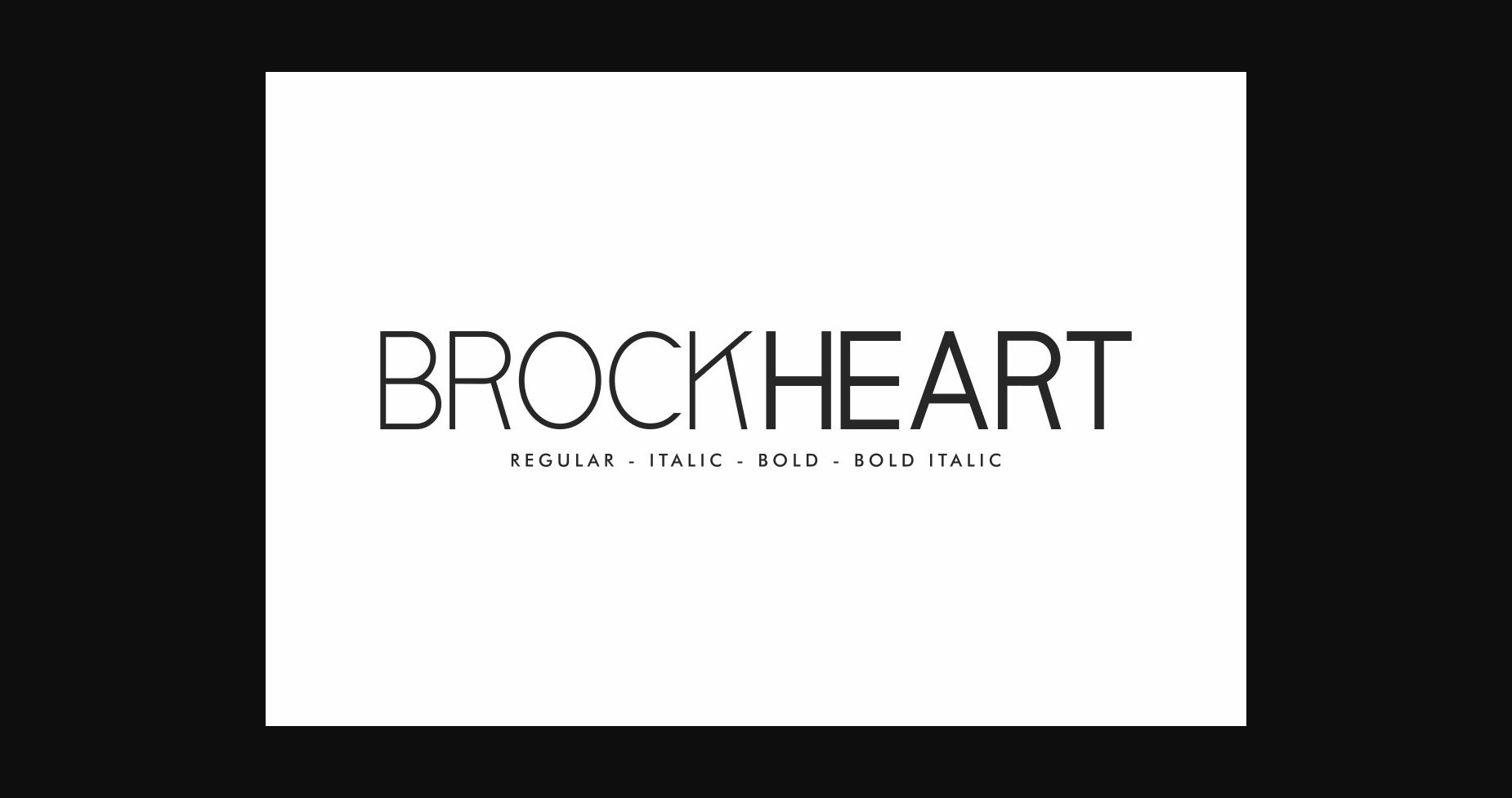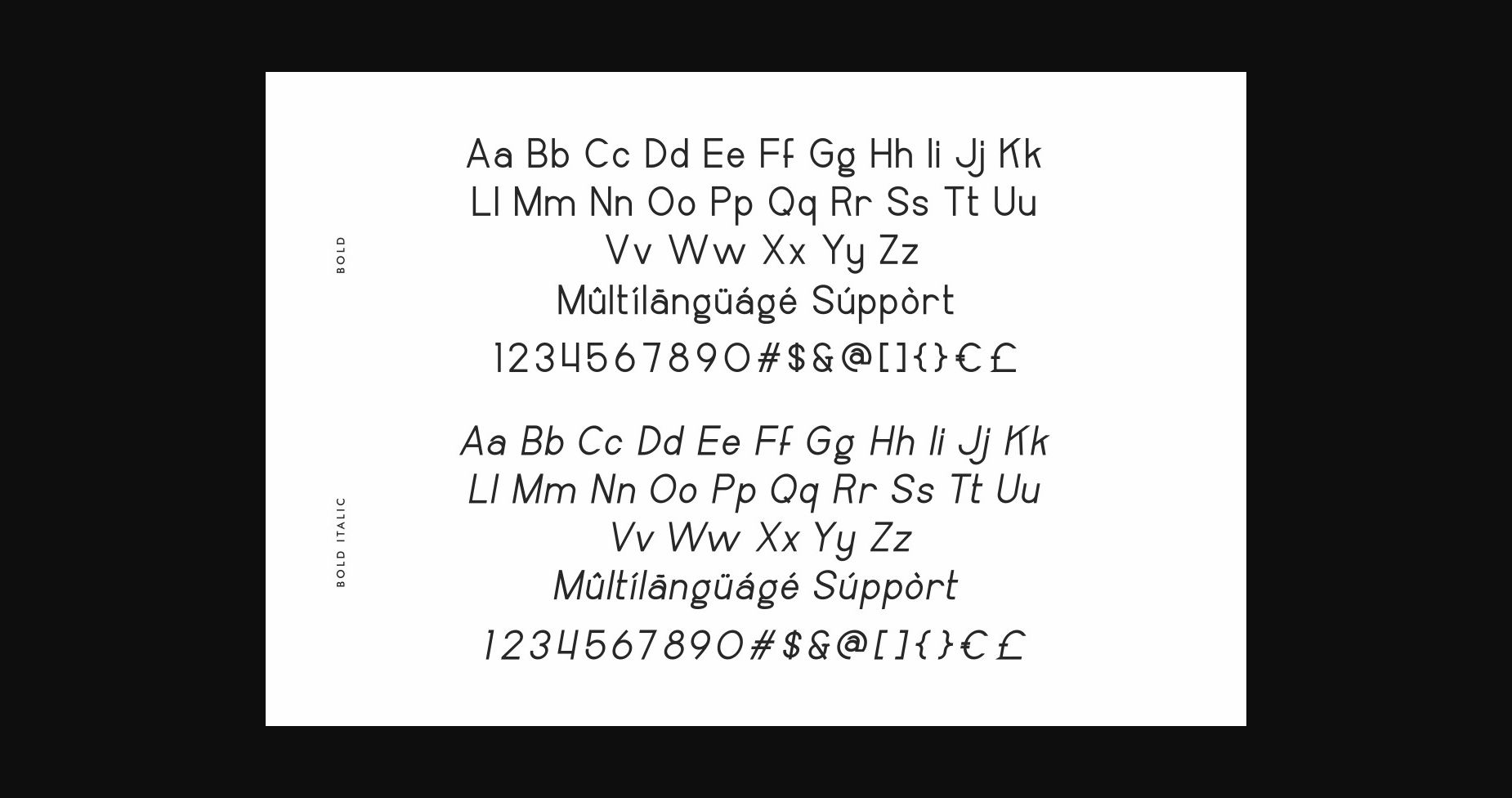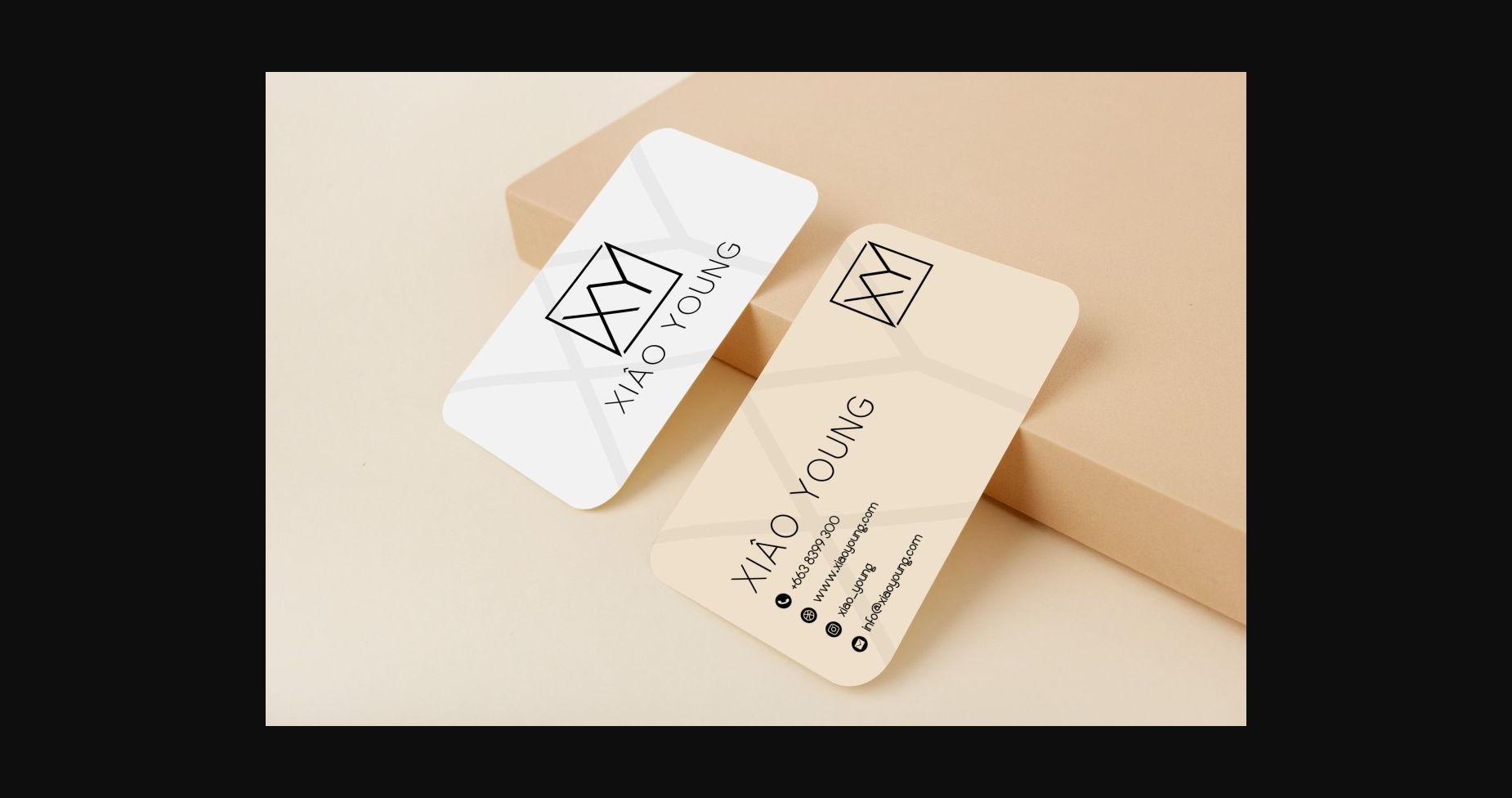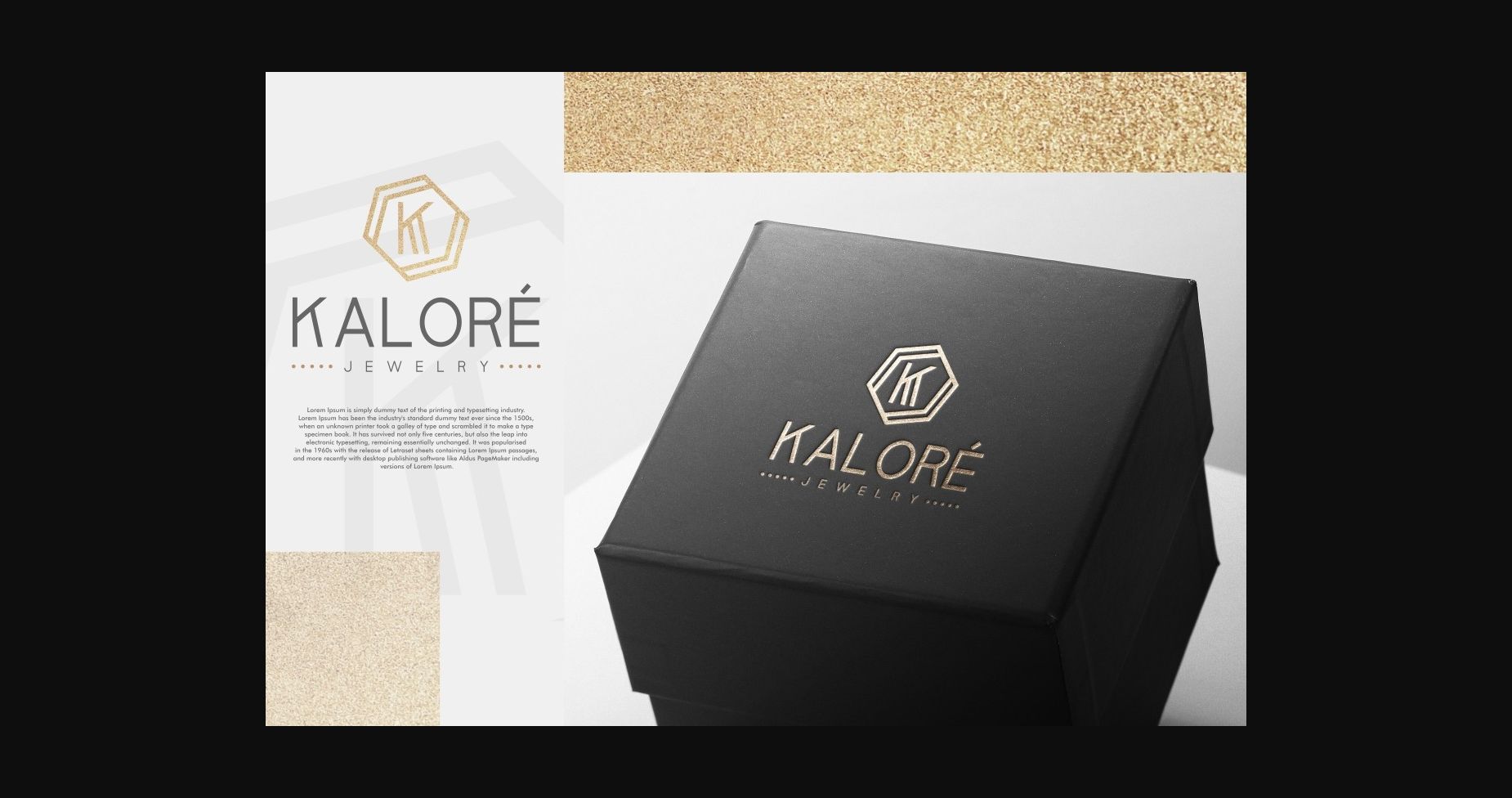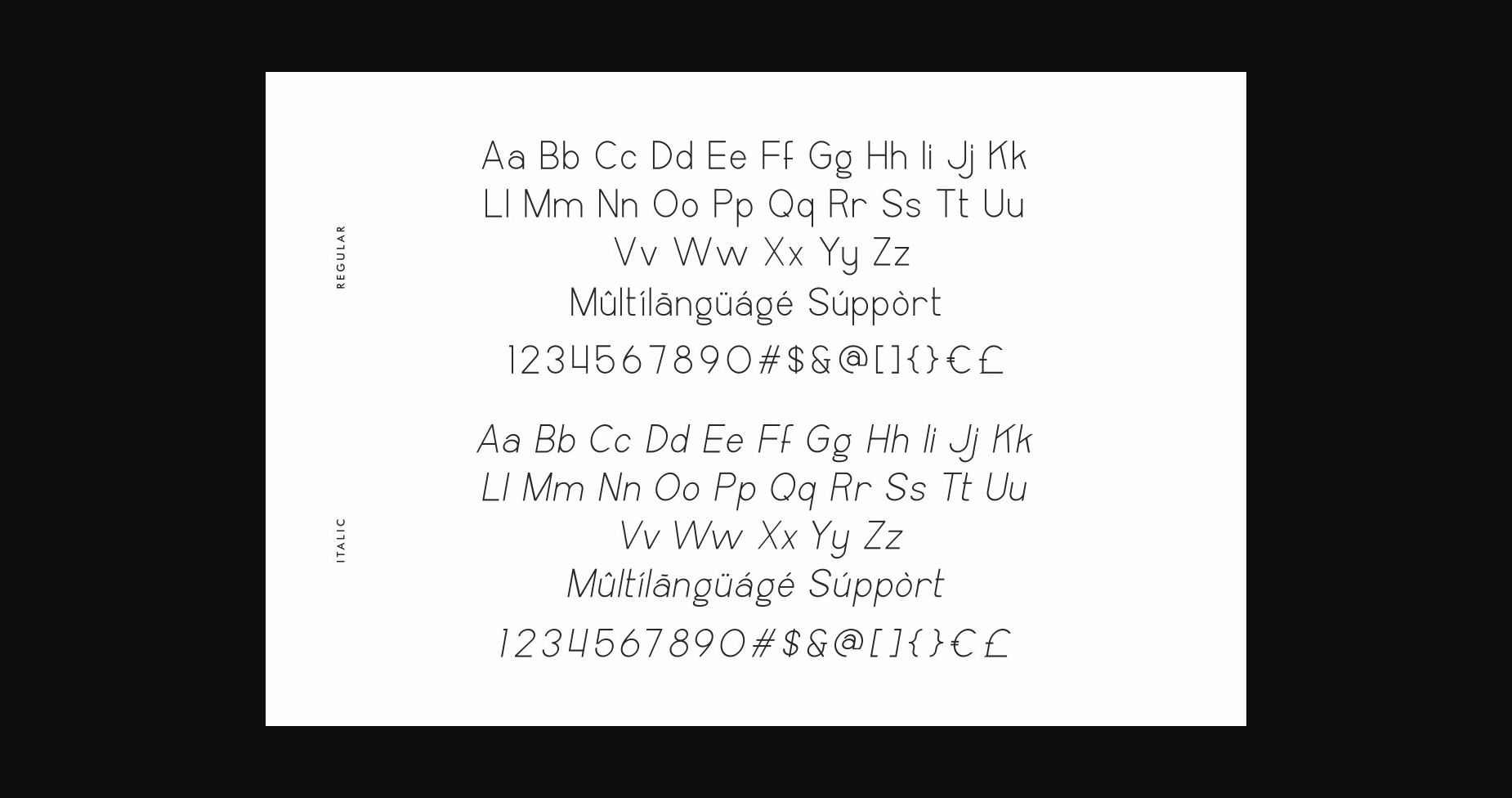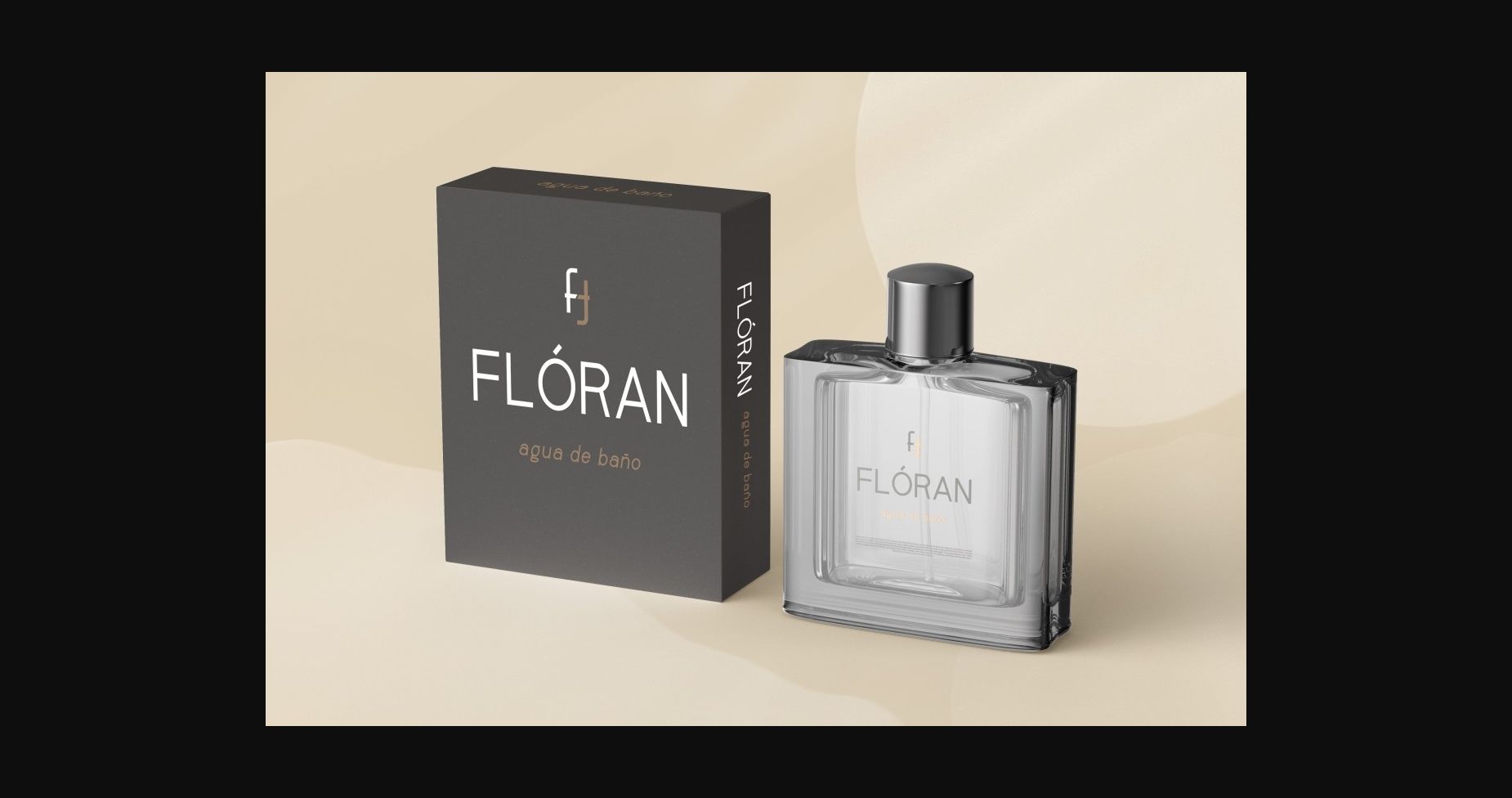
About Brockheart Font
Brockheart is a minimalistic and dainty sans serif font perfect for various projects, including logo branding, product packaging, screen printing, signage, title, webpage, etc. It will be great for many business industries: fashion, food and drink, games, techno, etc.